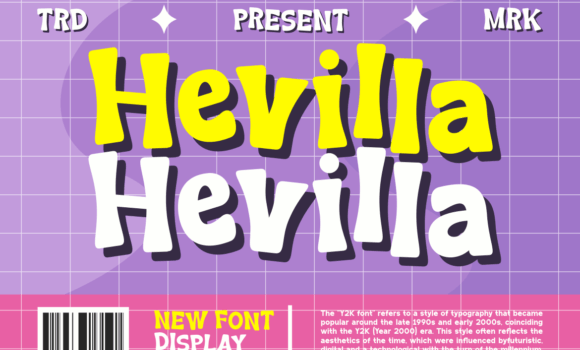
hevilla
Hevilla Font – Free Download Introduction to Hevilla Font Introducing our new product **Hevilla** – Y2k Display **Hevilla** is a visual representation of the Y2K (2000) aesthetic featuring futuristic style, technology, and digital elements from the early 2000’s. 📸 Preview